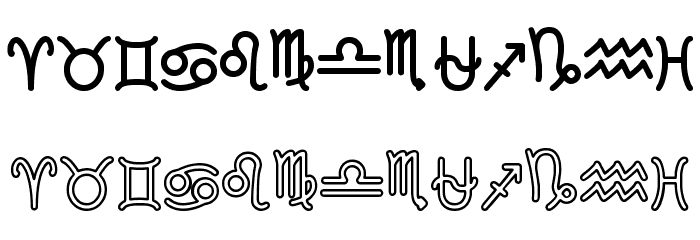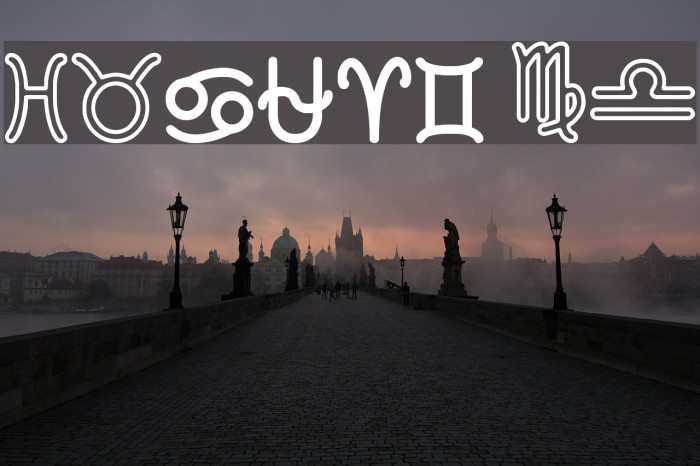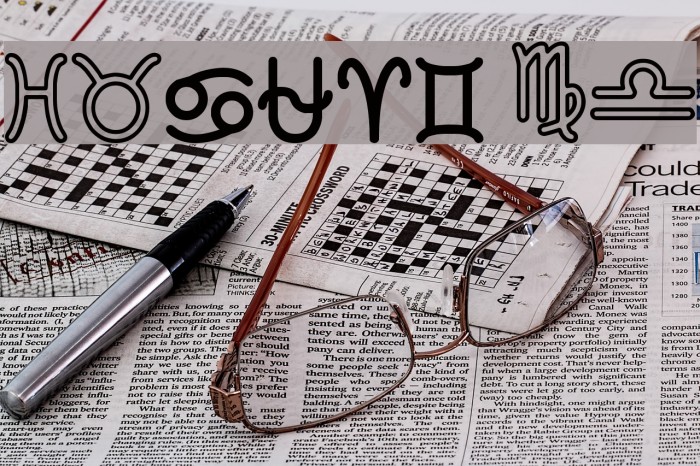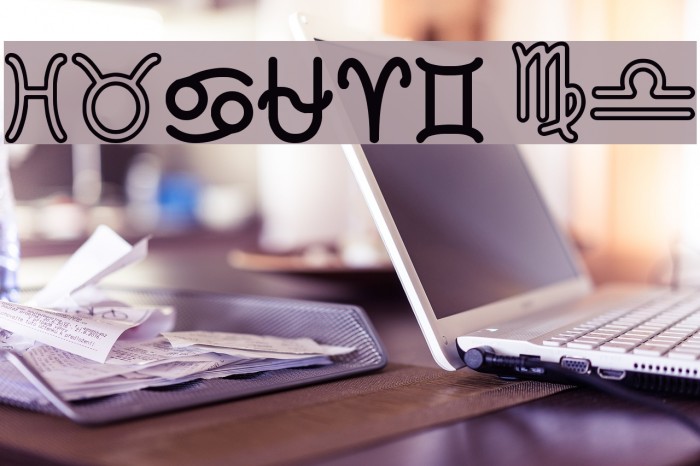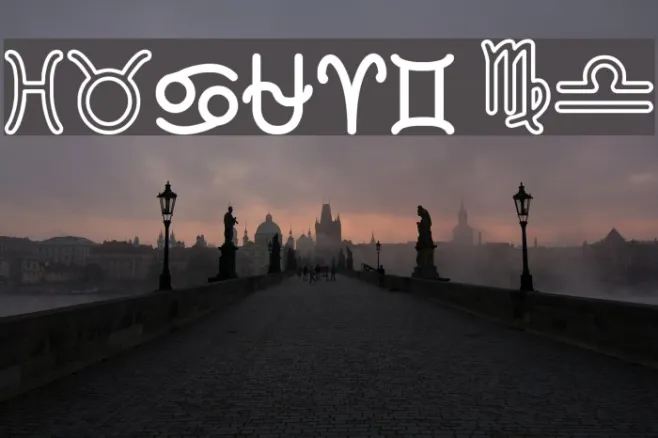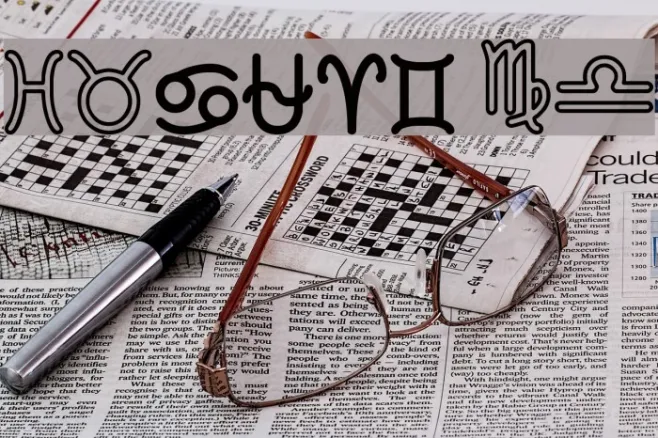
Zodiac St Font
This is not a valid font. The image contains zodiac symbols rather than a traditional alphabet or numerical characters. These symbols are typically used in astrology to represent the twelve zodiac signs. Each symbol is distinct and carries its own meaning related to astrological beliefs. They are not designed for general text use but rather for specific contexts where zodiac signs are relevant.
Contains zodiac symbols, not a traditional font.
- Font: Zodiac St
- Proposed Projects: Astrology-themed projects, horoscopes, or zodiac-related designs.
- Use Case: Astrology-related designs